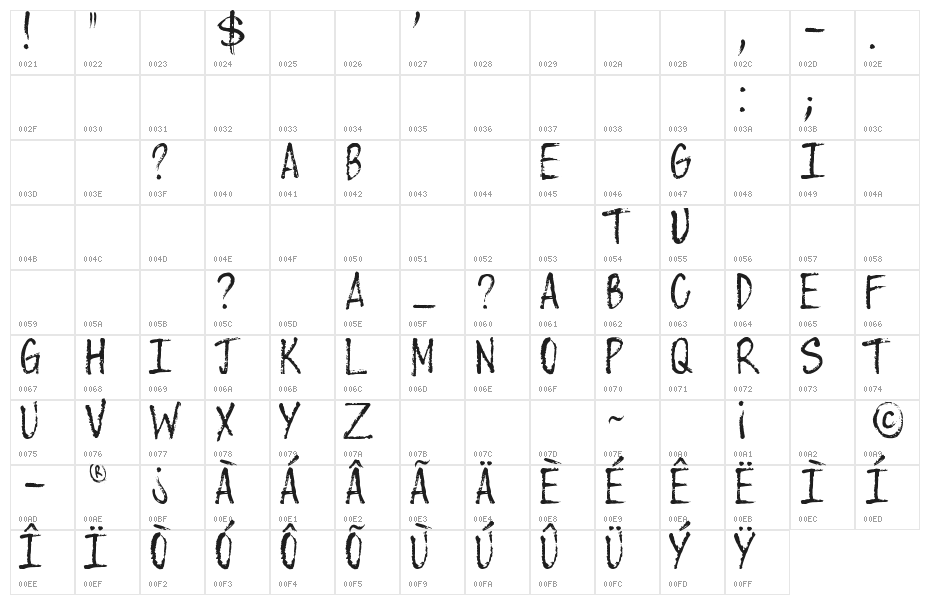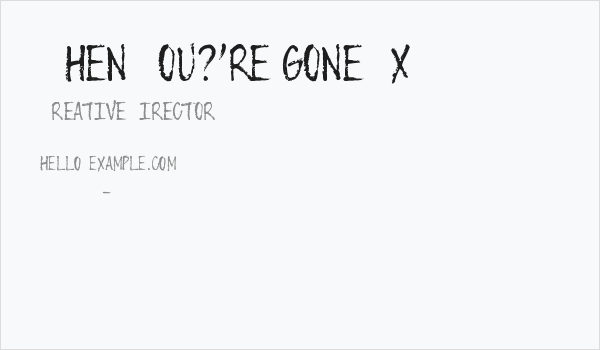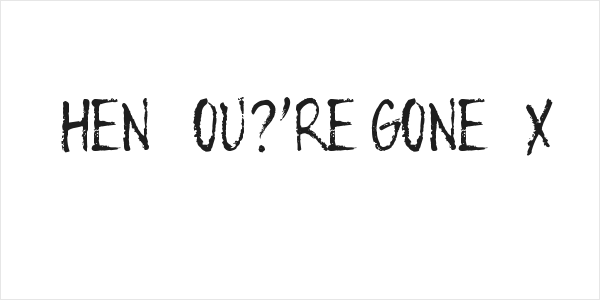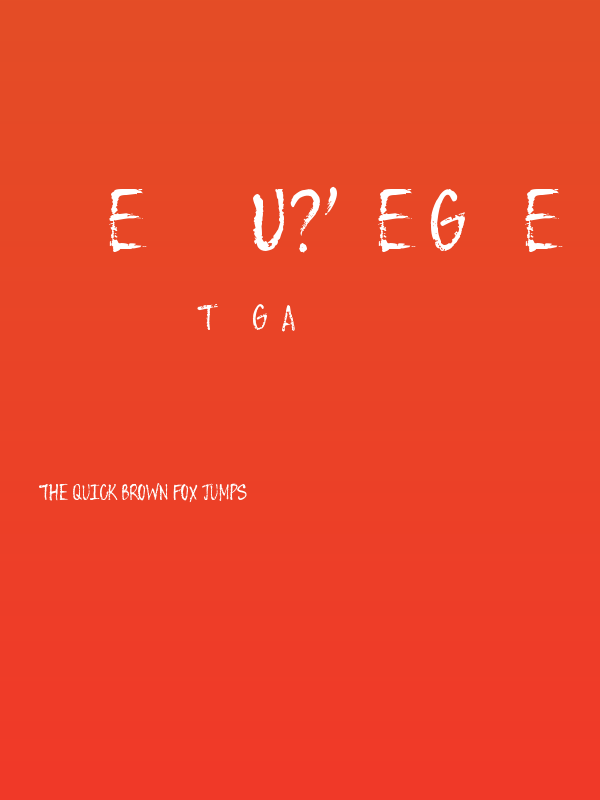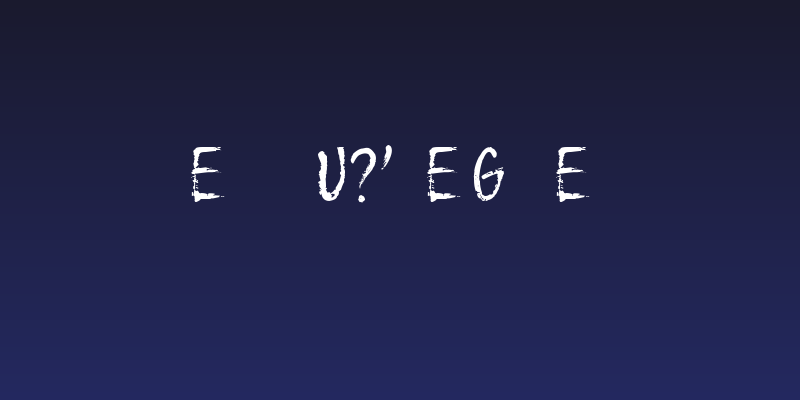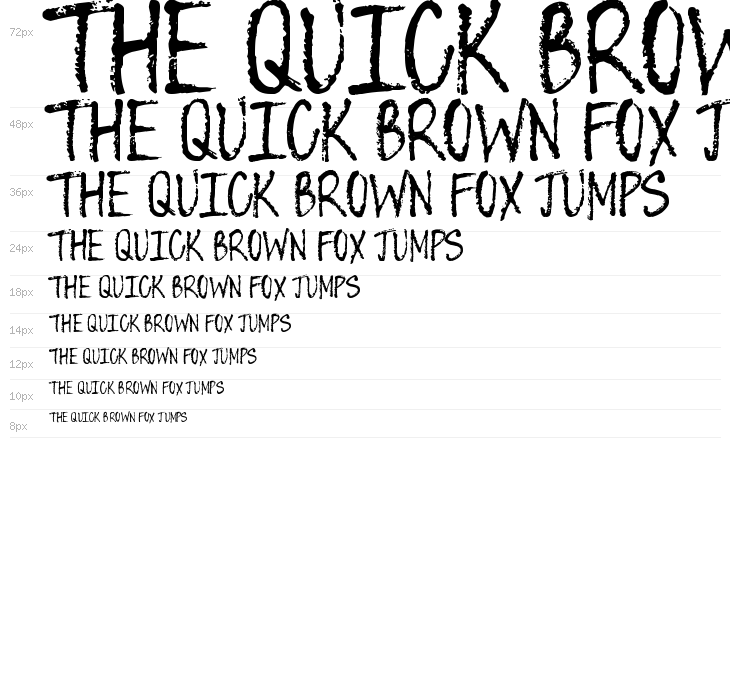
When You're Gone PxP Font
When You're Gone PxP Description
This font features a distressed, grunge style with rough, uneven edges and a hand-painted appearance. The characters are bold and impactful, with a slightly irregular baseline that adds to its raw, artistic feel. The uppercase letters are prominent, while the lowercase letters maintain the same rugged texture. The numbers and special characters follow the same design, ensuring consistency throughout. This font is ideal for projects that require a bold statement or an edgy, urban aesthetic.
| Overall Style | Grunge, Urban, Artistic |
| Use Case | Headlines, Posters, Branding |
| Proposed Projects | Ideal for album covers, posters, streetwear branding, and urban-themed designs. |